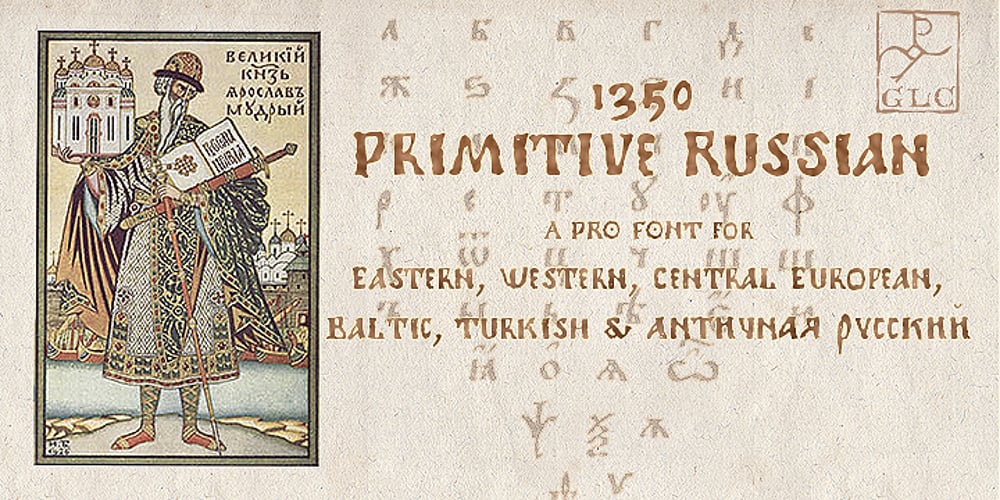
1350 Primitive Russian Font Family was designed by Gilles Le Corre and published by GLC. 1350 Primitive Russian contains 1 styles and family package options. This rough font was inspired by a Russian Cyrillic hand of the 1350s “Russkaja Pravda” (a Russian text of common Laws). As a Pro font, it supports Western and Northern European, Icelandic, Baltic, Eastern, Central European and Turkish specific characters, as well as Old Russian glyphs, including many which fell out of use in the 1700s, except in religious texts — in all over 136 Russian glyphs. The upper and lower case have the same form and almost same size, like in the original texts, which had only one size and style.